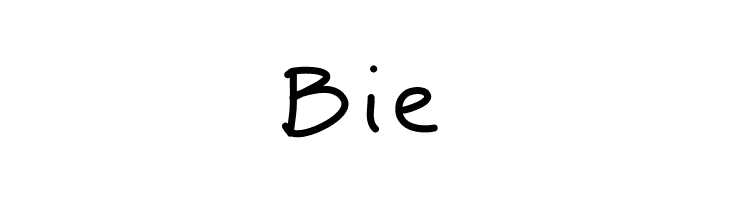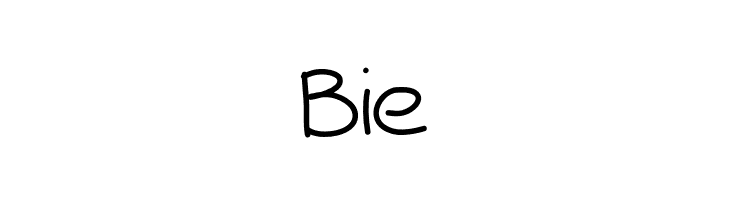
A playful, handwritten font with tall, narrow letters and a whimsical style.
A playful, whimsical handwritten font with tall, slender letters and quirky curves.
A playful, handwritten font with fluid strokes and a casual style.
A playful, handwritten font with a casual, whimsical style.
An elegant and whimsical script font with flowing, interconnected letters and playful loops.
A dynamic, hand-drawn font with sharp, angular strokes and a graffiti-like style.
A playful, casual handwritten font with smooth, flowing lines.
A playful, hand-drawn font with thin, whimsical strokes.
A playful, energetic handwritten font with irregular strokes and a casual style.
A playful, informal handwritten font with smooth, flowing lines.
An artistic, calligraphic font with flowing, dynamic strokes.
A bold, playful script font with a handwritten style.
A bold, expressive handwritten font with dynamic strokes and playful character.
A bold, playful handwritten font with a lively and informal style.
A whimsical, monster-themed font with playful, hand-drawn characters.
A playful, handwritten font with a casual and dynamic style.
A playful, casual handwritten font with irregular strokes and low contrast.
A sketch-like, hand-drawn font with textured, artistic strokes.
A playful, informal handwritten font with rounded, consistent strokes.
A playful, handwritten font with rounded, whimsical characters.
A scratchy, hand-drawn font with an energetic and edgy style.
A playful, hand-drawn script font with a condensed and bold style.
A playful, hand-drawn serif font with bold, rounded serifs and irregular strokes.
A delicate, thin script font with elegant, flowing lines.
A dynamic, expressive font with tall, narrow letterforms and sharp strokes.
A playful, casual handwritten font with uneven strokes and dynamic lines.
An artistic calligraphic font with dynamic strokes and expressive curves.
A bold, hand-drawn font with thick, uneven strokes and a playful, energetic style.
A playful, handwritten font with a condensed and casual style.
A playful, hand-drawn font with rounded, bold characters and a casual style.
A wavy, trembling font with thin, irregular strokes for a dynamic look.
A futuristic, triple-line geometric font with a bold and dynamic style.
A playful, casual handwritten font with irregular strokes and a whimsical feel.
A playful and whimsical script font with curly, looping letterforms.